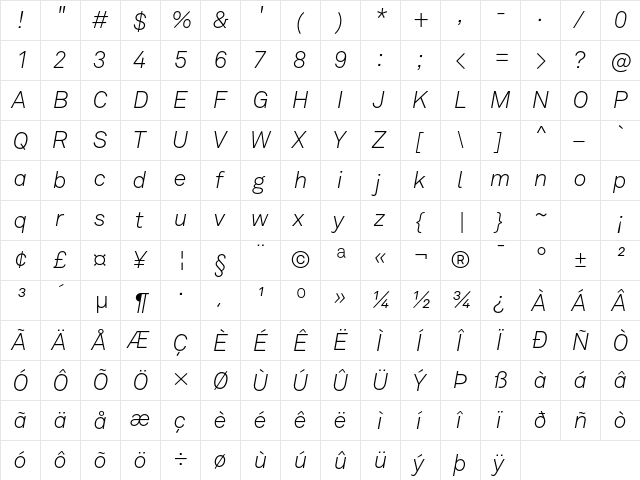
Akkurat Light Italic Font Preview
| Foundry | Laurenz Brunner |
| Designer | Laurenz Brunner |
Design Context for Akkurat Light Typeface
Akkurat Light takes a measured approach to typography — its balanced proportions and neutral character make it a reliable workhorse for both digital and print work. The dynamic lean of this cut emphasises speed and emphasis in any layout. The delicate stroke weight brings airiness and refinement to layouts.
Pro Tip: Try Akkurat Light for annotation and caption copy alongside an upright companion — the contrast in angle creates a dynamic but ordered typographic system.